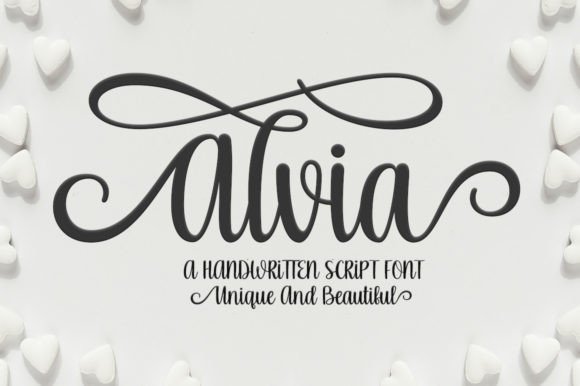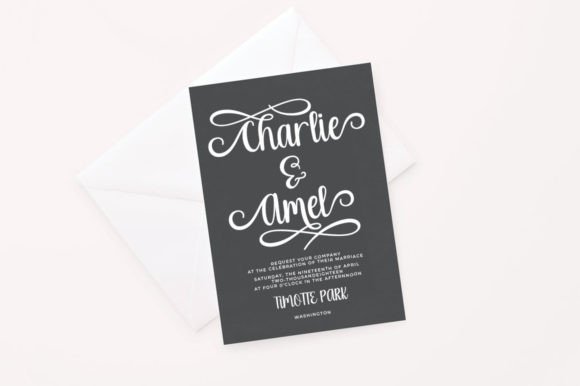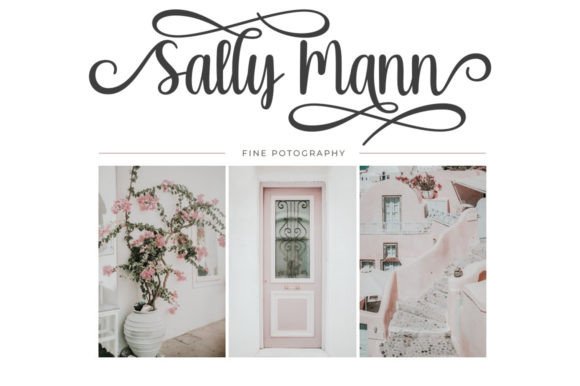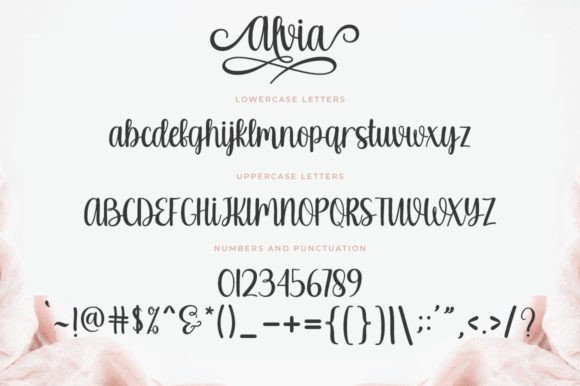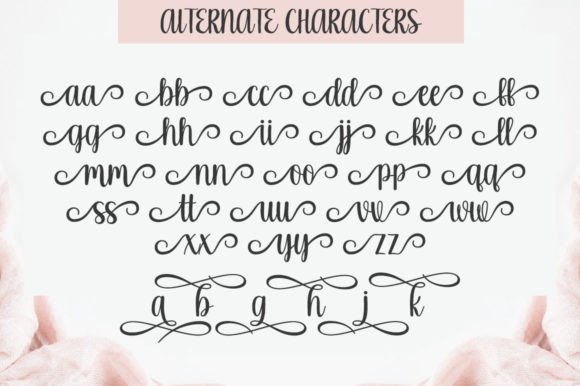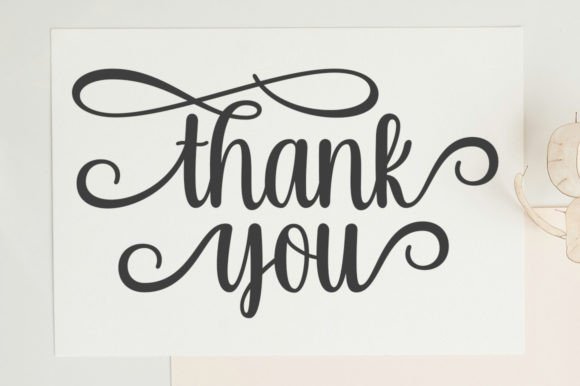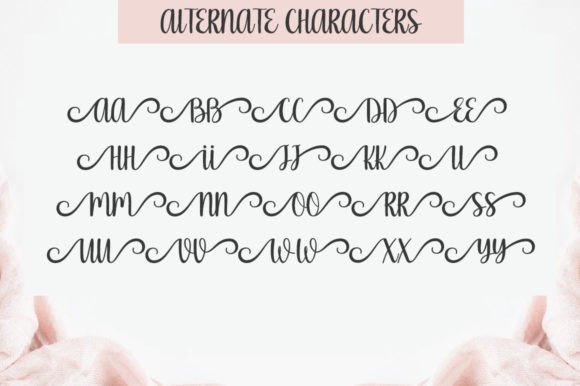
Alvia Font
A Clean and Elegant Script Typeface
Alvia is a modern script font designed to bring elegance and clarity to your creative projects. With smooth strokes and balanced spacing, this font feels fresh and timeless. Whether you’re designing invitations, letters, or headlines, Alvia adds a refined touch that makes your work stand out.
Its graceful style blends traditional script details with a modern edge, making it versatile for many uses.
Alvia is a font you’ll love using over and over. It’s ideal for wedding invitations, save-the-date cards, and thank you notes. The sophisticated script creates a warm and personal feel perfect for special occasions.
For branding, Alvia shines on logos, business cards, and product packaging. Its clean lines make any brand feel polished, upscale, and approachable.
This font also works beautifully on headlines, blog graphics, and social media posts. The balanced shapes and clear letterforms help your content stand out while maintaining readability.
In creative projects, Alvia adds personality to quotes, posters, and handmade gifts. The elegant flow makes any text look more thoughtful and artistic.
Even with its decorative flourishes, Alvia remains clear and legible in any size. The consistent stroke weight and smooth connections between letters keep your text tidy in both large headlines and smaller captions.
For a modern and organized design, pair Alvia with a simple sans-serif font. Use Alvia for titles and highlights, and the sans-serif for supporting content. This combination feels fresh, clean, and professional.
To highlight Alvia’s elegance, use neutral backgrounds and soft color palettes. Shades like blush pink, warm beige, and pale gray allow the script to stand out without overwhelming your design.
When designing invitations or packaging, consider adding minimal icons or subtle decorative elements that match the font’s refined character.
On social media, embrace white space to keep your text the focus and your visuals clean.
Think about the mood you want to create. Alvia is perfect for projects that should feel sophisticated, modern, and timeless.
Alvia isn’t just another script font—it’s a creative tool that brings style and clarity to every project. From professional branding to personal keepsakes, this font adapts effortlessly and adds a polished feel to your work.
Adding Alvia to your font collection means you’ll always have a versatile, beautiful option ready for any purpose. Whether you’re designing logos, invitations, or social media graphics, this font helps every project feel special and memorable.